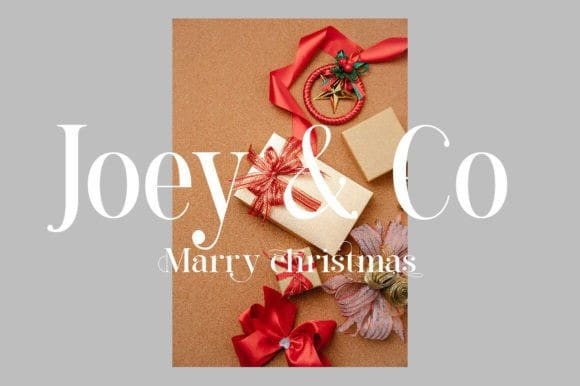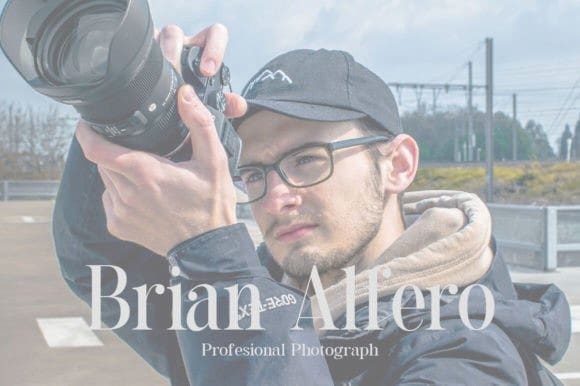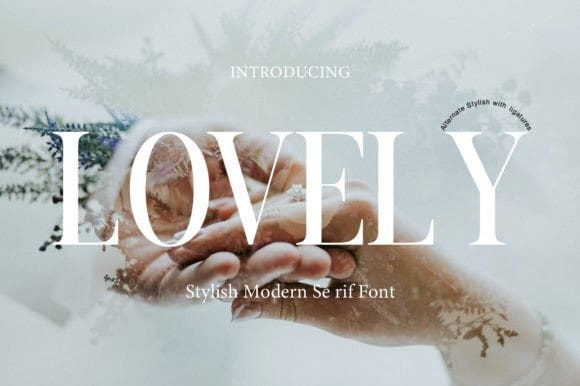
Lovely Serif Font
Lovely Serif Font,This font is Stylish modern serif font with fancy and elegant. This font is ideally suited for a wide variety of projects, such as signature, stationery, logo, typography quotes, magazine or book covers, website headers, branding, packaging design, social media post, flyer, web design, in design, profile identity, brand identity, fashion-related branding or editorial design displays, logotype, banner, digital design, document type and more.
Lovely Serif font very good for branding, clothes, poster, brochures and packaging, apparel projects, signature, album cover, logo, social media, & advertisements, but also works great for other projects. Lovely font is perfect for your design needs.